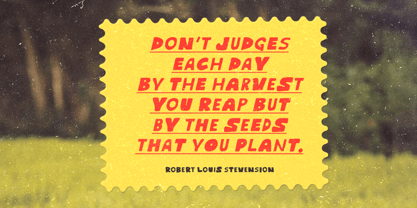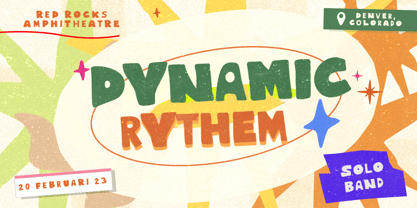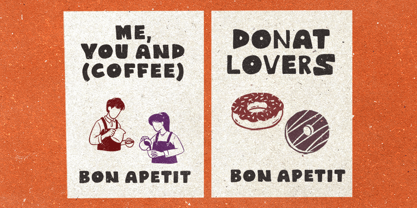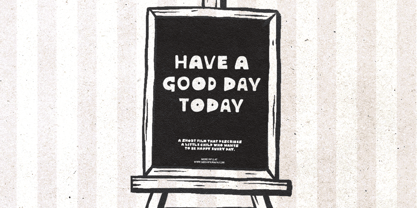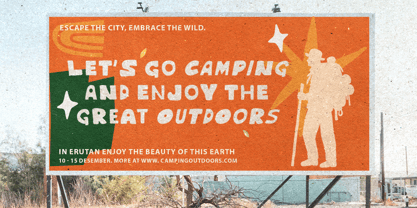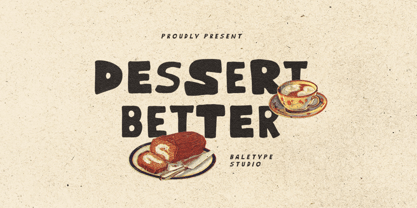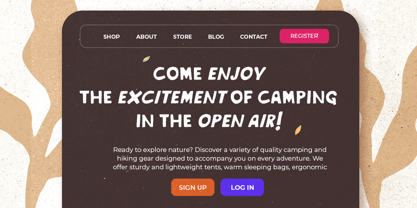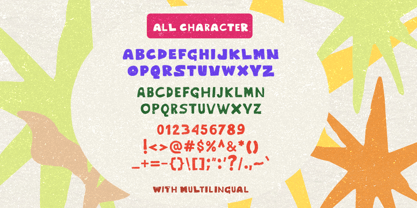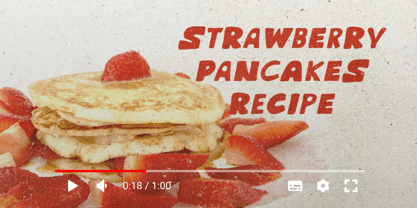
Dessert Better
by Bale Type
The Dessert Better Font Family was designed by Albin Pawaz and published by Bale Type. Dessert Better contains 2 styles and family package options. More about this family
Dessert Better is a hand-drawn bold font with unique and natural shape. With different weight and shape of the uppercase and lowercase, you can randomly use both in one word to make your design more standout and eye-catching. You can use this font for any project such as branding, logotype, poster, quotes, or any design that need handmade looks. This font also support multi language.